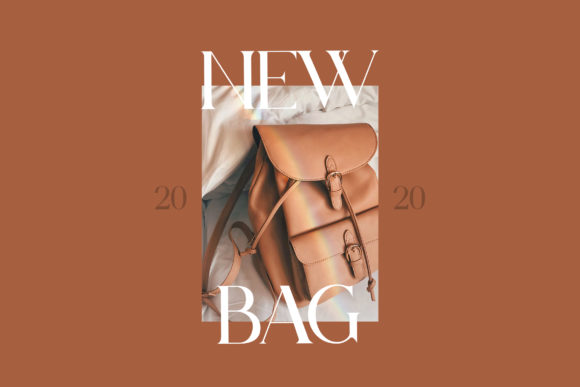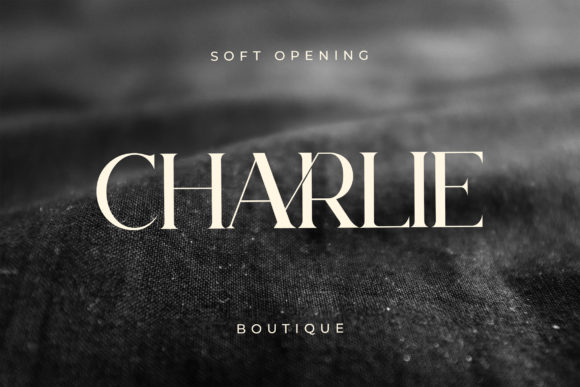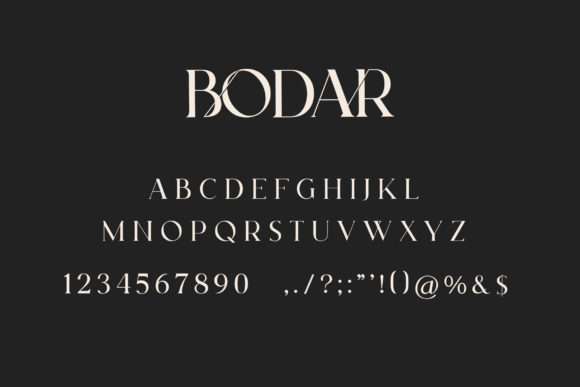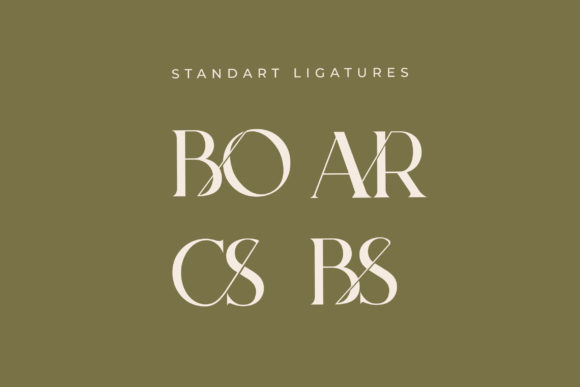
Bodar Font: Elevate Your Designs with Elegance and Sophistication
In the world of typography, fonts play a crucial role in conveying the tone and personality of a design. For designers and crafters seeking a stylish and modern serif font, Bodar is an excellent choice. This beautiful and elegant font is perfect for those who want to add a touch of sophistication to their projects. In this article, we’ll explore the features and benefits of Bodar Font, and how you can have fun experimenting with its endless variations.
What is Bodar Font?
Bodar Font is a modern serif font designed to bring a sense of elegance and refinement to your designs. Its sleek lines, balanced proportions, and subtle flair make it an ideal choice for a wide range of applications, from luxury branding and advertising to digital publishing and crafting. With its clean and sophisticated look, Bodar Font is sure to elevate your designs and leave a lasting impression.
Key Features of Bodar Font
- Modern Serif Design: Bodar Font boasts a contemporary serif design that exudes style and sophistication.
- Elegant Lines: The font’s sleek lines and balanced proportions create a sense of refinement and luxury.
- Endless Variations: With Bodar Font, you can experiment with numerous variations to create unique and captivating designs.
- High Versatility: This font is suitable for a wide range of applications, from digital publishing to crafting and luxury branding.
Benefits of Using Bodar Font
So, why choose Bodar Font for your designs? Here are just a few benefits you can expect:
- Enhanced Visual Appeal: Bodar Font’s elegant design and sophisticated look will instantly elevate the visual appeal of your designs.
- Improved Readability: The font’s clear and balanced proportions ensure excellent readability, making it perfect for body text and headings.
- Unique Design Opportunities: With Bodar Font’s endless variations, you can experiment with different styles and effects to create truly unique designs.
- Time-Saving: The font’s versatility and flexibility save you time and effort, as you can use it for multiple projects and applications.
Exploring Endless Variations with Bodar Font
One of the most exciting aspects of Bodar Font is its endless variations. Here are some ideas to get you started:
- Experiment with Font Sizes: Try using Bodar Font in different sizes to create visual interest and hierarchy in your designs.
- Play with Color: Bodar Font looks stunning in a range of colors, from rich blacks and dark grays to bright and bold hues.
- Add Texture and Patterns: Combine Bodar Font with textures and patterns to add depth and visual interest to your designs.
- Mix and Match with Other Fonts: Bodar Font pairs well with a range of other fonts, so feel free to experiment with different combinations to create unique effects.
To get the most out of Bodar Font, here are some tips for designers and crafters:
- Use Bodar Font as a Headline Font: The font’s elegant design and sophisticated look make it perfect for headlines and titles.
- Experiment with Ligatures: Bodar Font features beautiful ligatures that can add an extra touch of elegance to your designs.
- Pay Attention to Kerning: Make sure to adjust the kerning to ensure that your text looks balanced and visually appealing.
In conclusion, Bodar Font is a stylish and modern serif font that offers endless possibilities for designers and crafters. With its elegant design, sophisticated look, and high versatility, this font is perfect for a wide range of applications. By experimenting with its endless variations and following our tips, you can create stunning designs that elevate your brand and leave a lasting impression.
So, have fun with Bodar Font and explore its endless variations. Whether you’re a seasoned designer or a crafty enthusiast, this beautiful and elegant font is sure to inspire you to create something truly special.